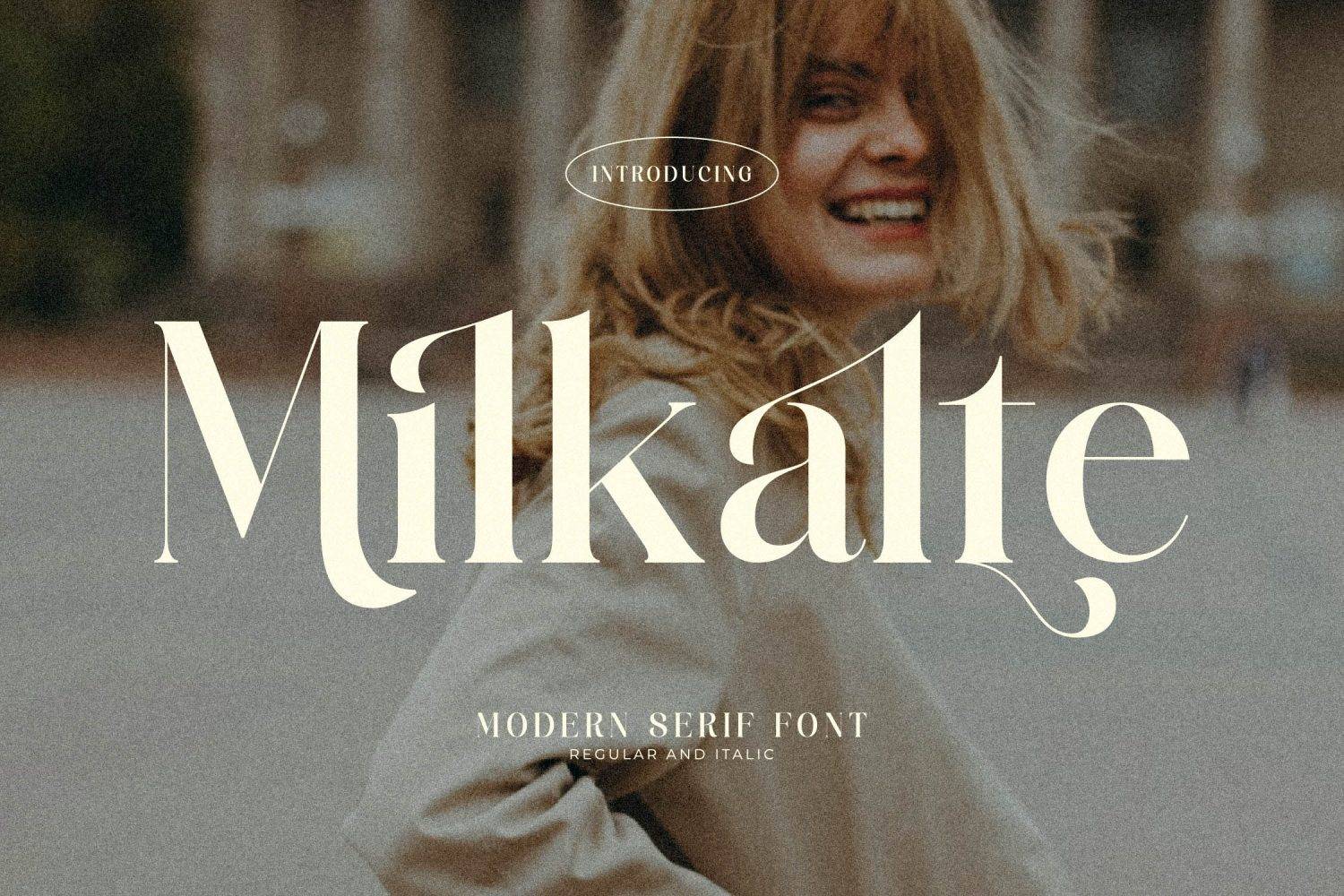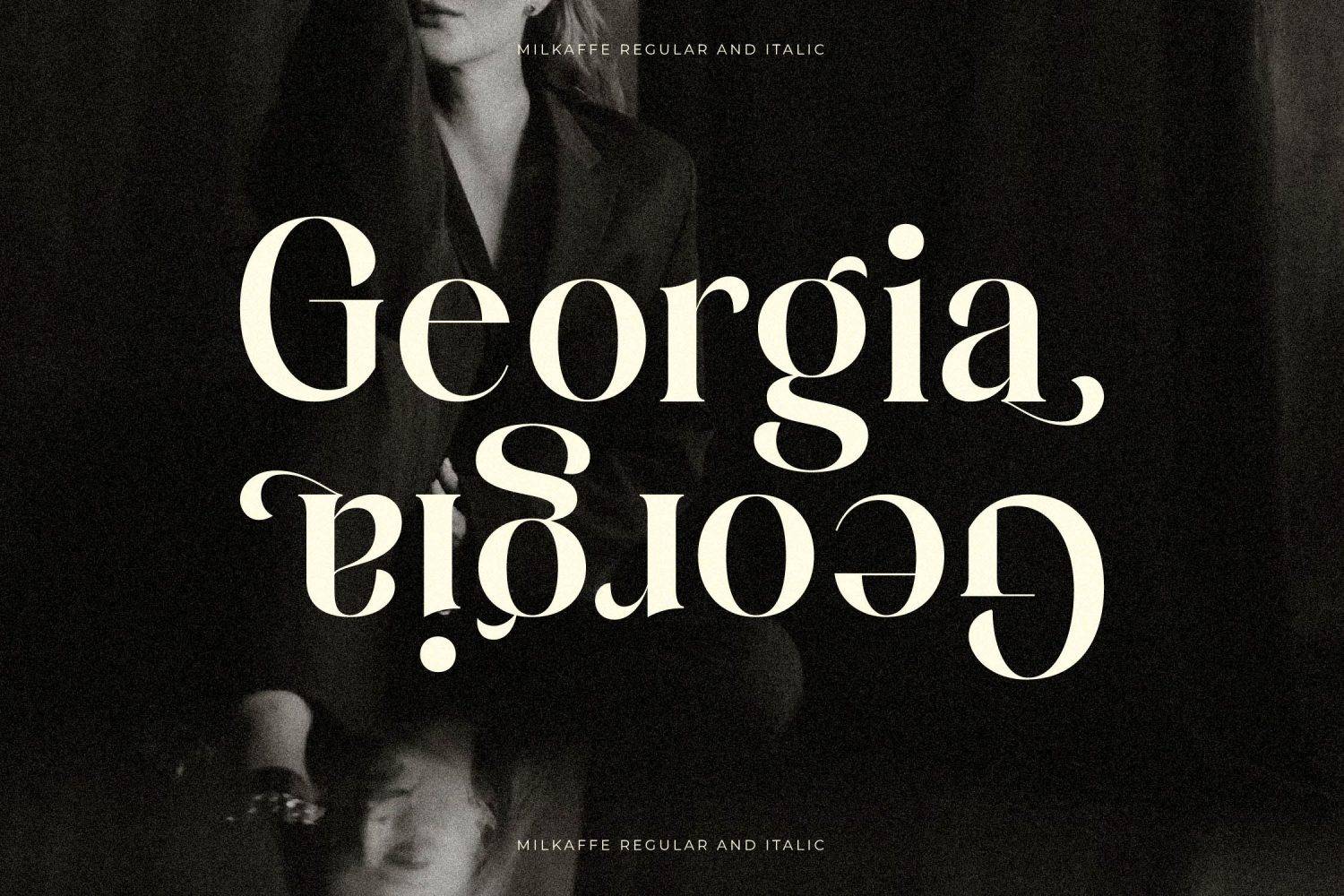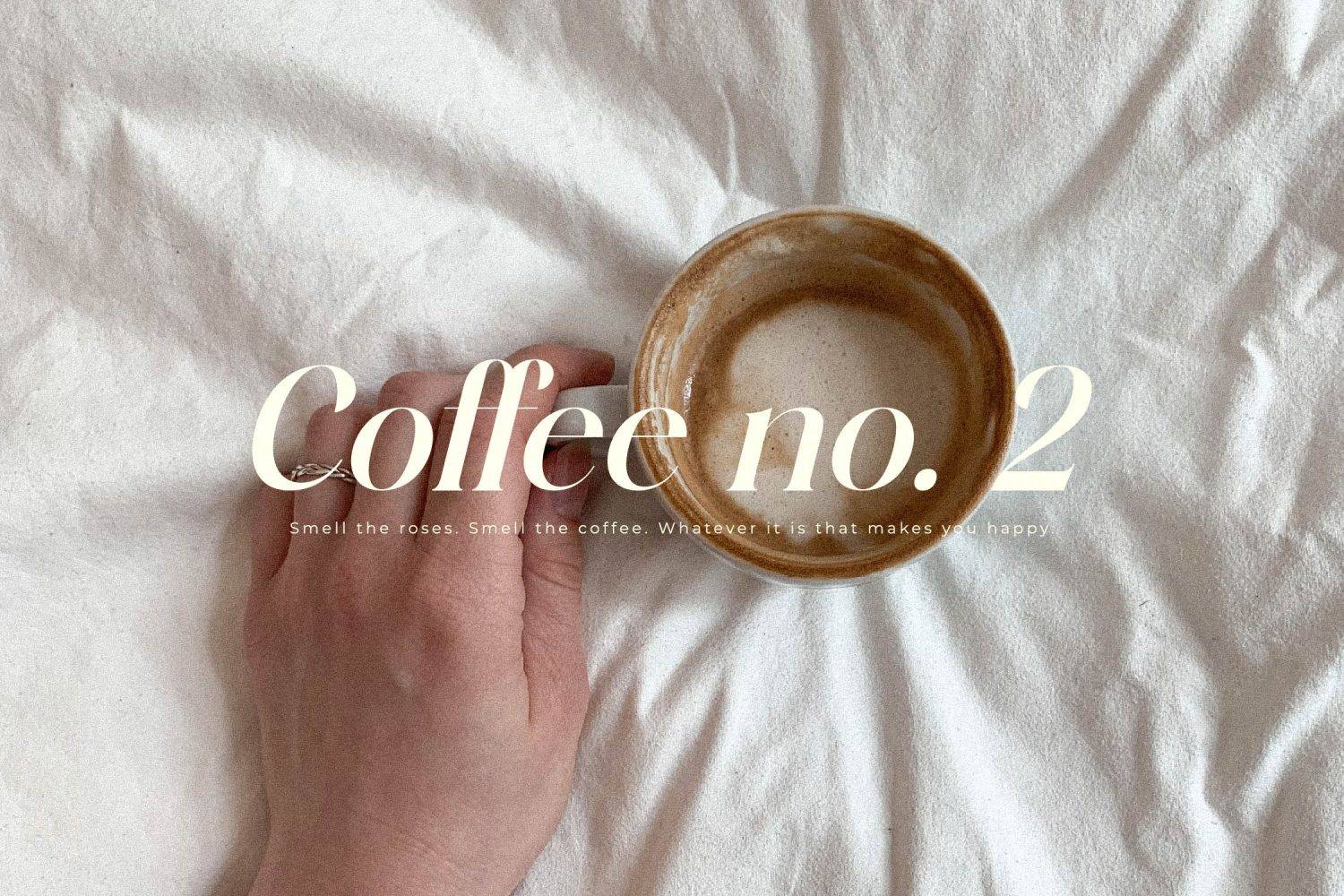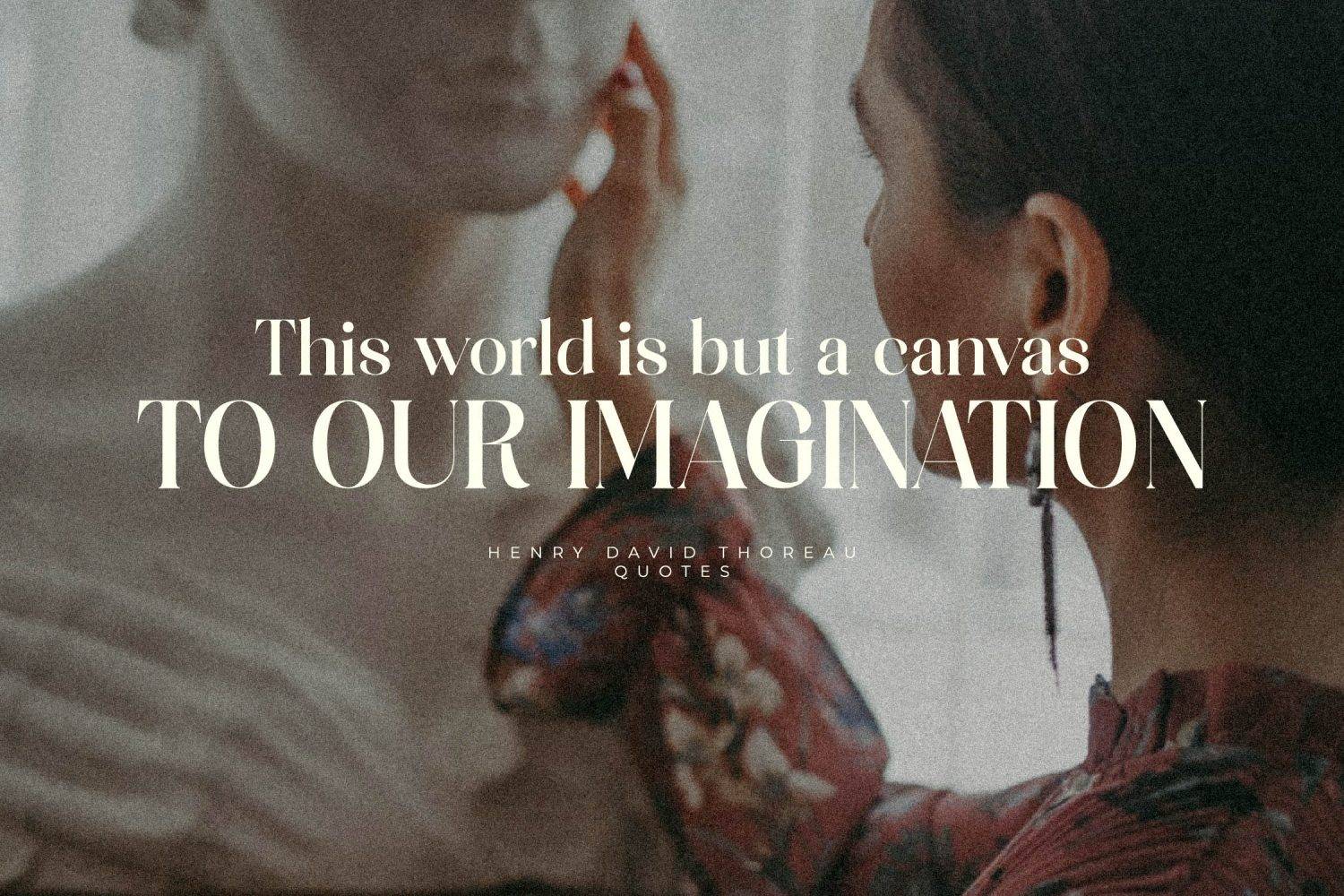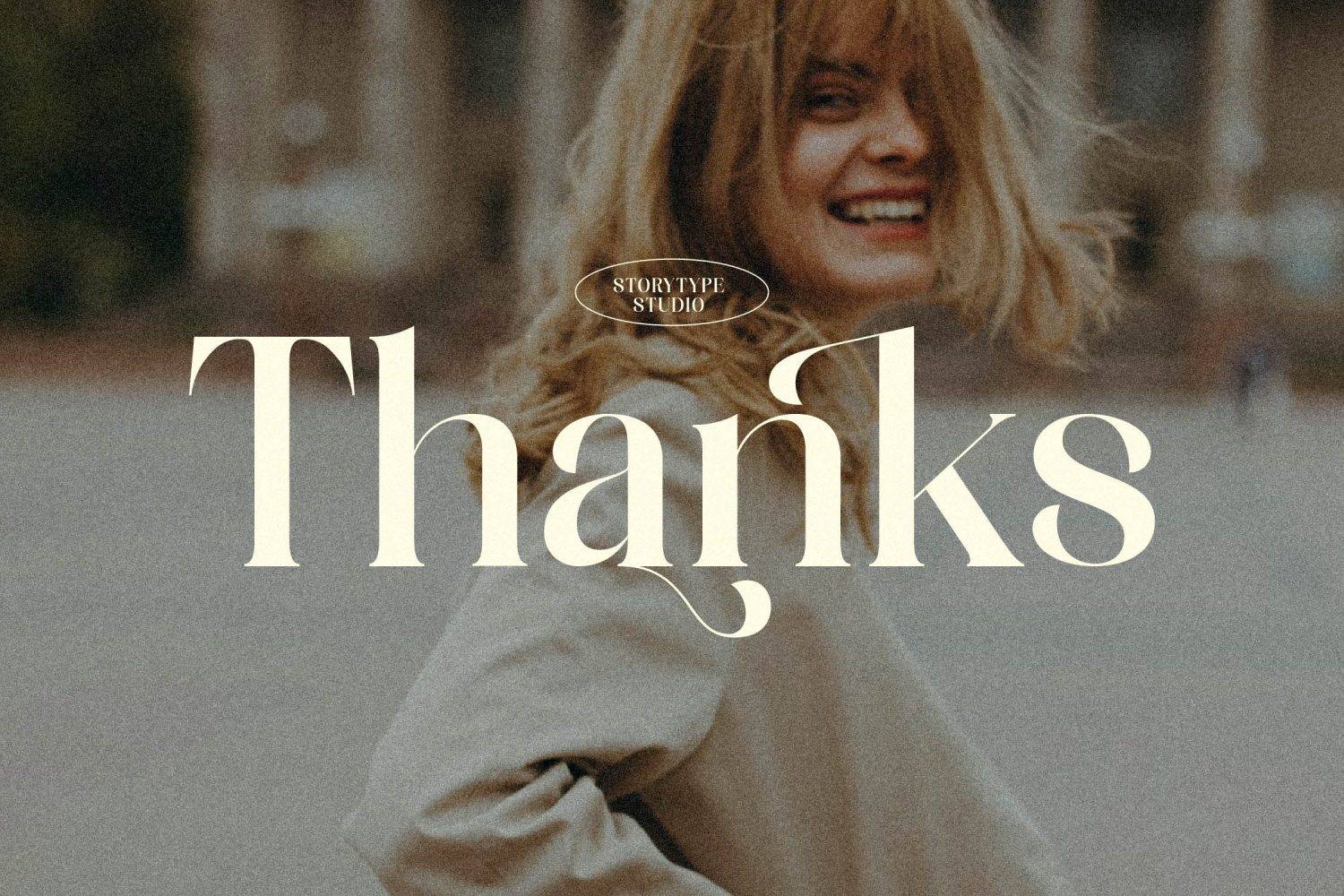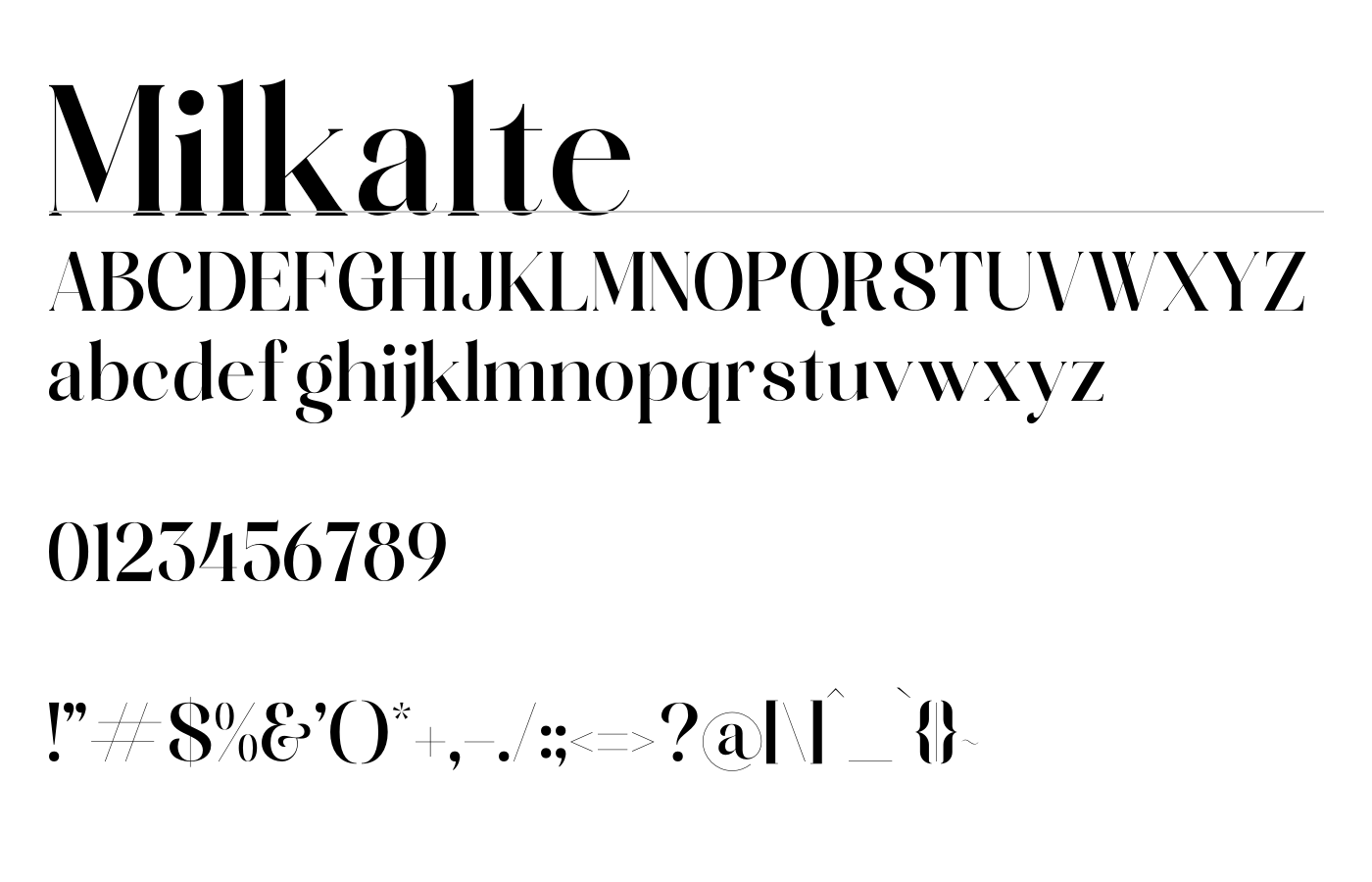
Milkalte is a stylish serif typeface characterized by its high contrast between thick and thin strokes and elegant, sharp serifs with delicate bracketed edges. Its tall, narrow letterforms with distinctive single-story 'a' and strong, refined details impart a sophisticated and modern luxury feel, making it ideal for upscale branding, editorial headlines, and fashion-focused designs. This font combines classic elegance with contemporary flair, offering a striking presence wherever a refined, high-end look is desired.
Milkalte Font
About Milkalte Font